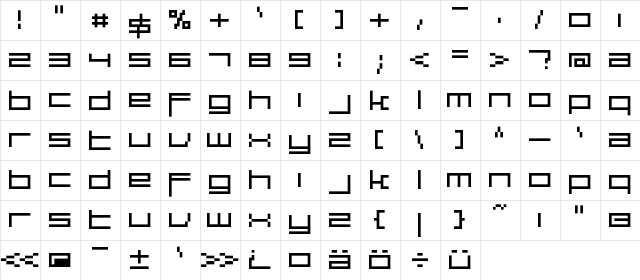
Large9 Normal
Design Context for Large9 Typeface
Large9 takes a measured approach to typography — its balanced proportions and neutral character make it a reliable workhorse for both digital and print work.